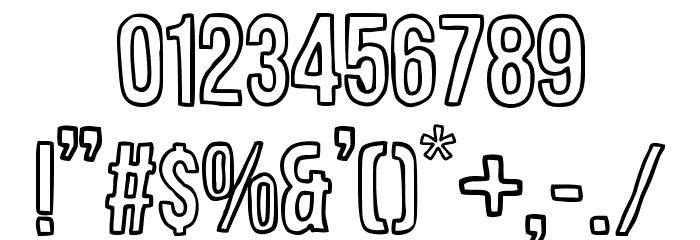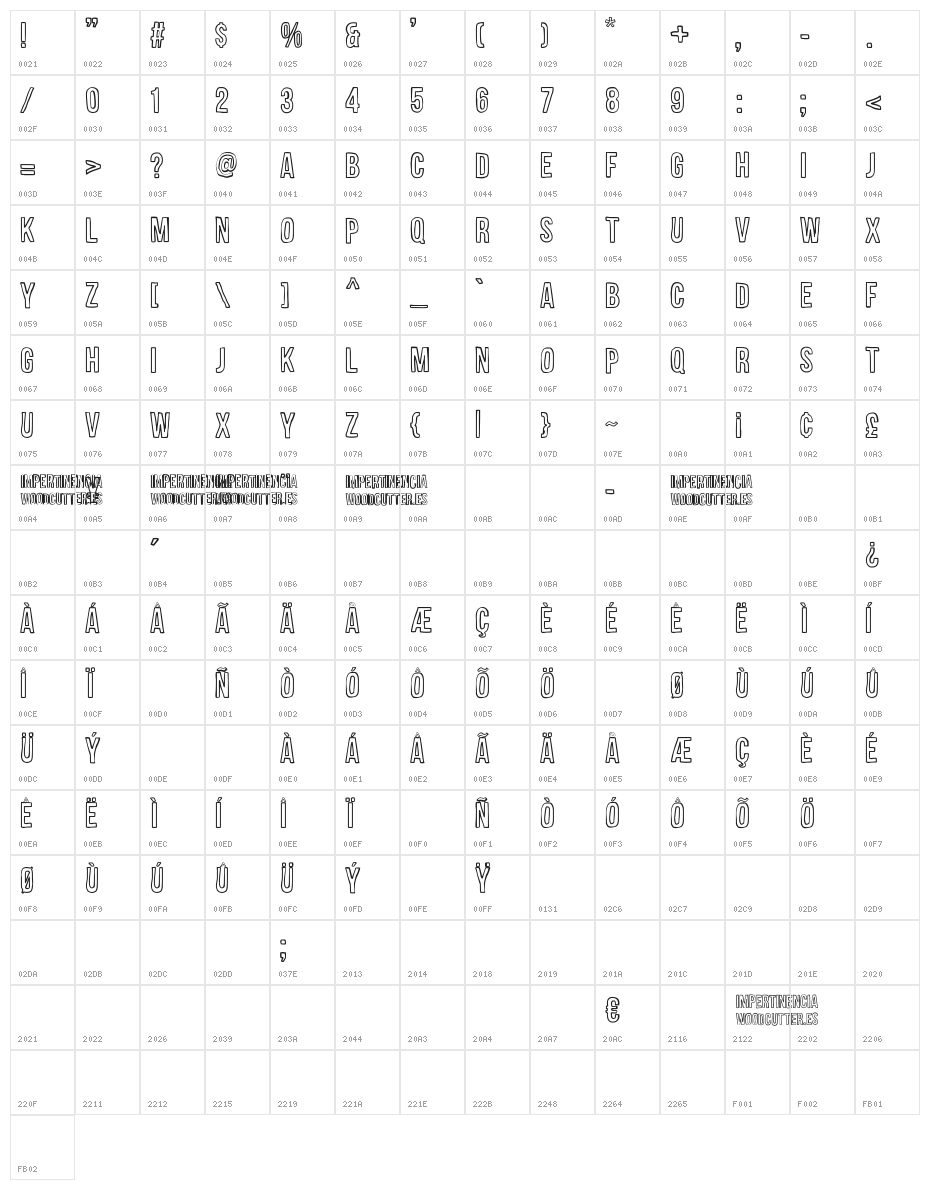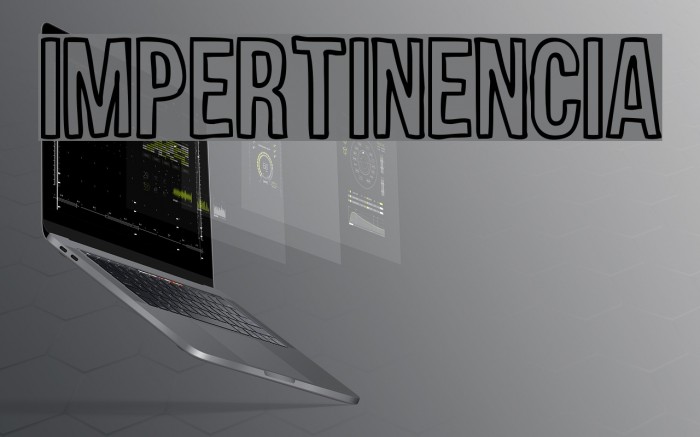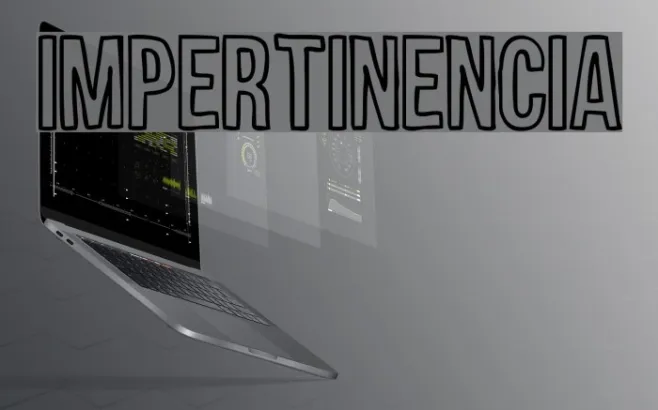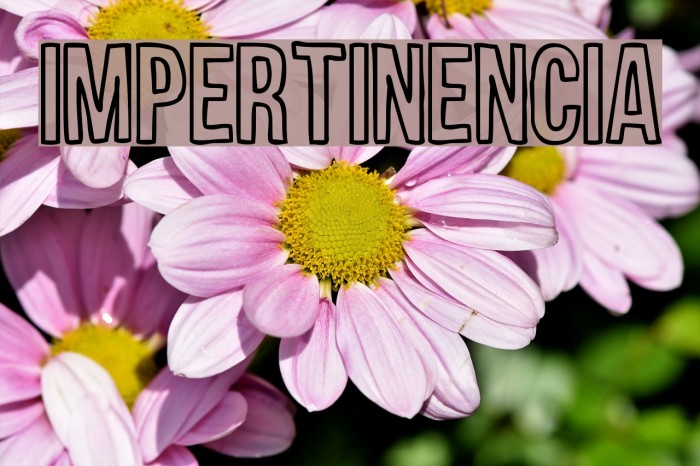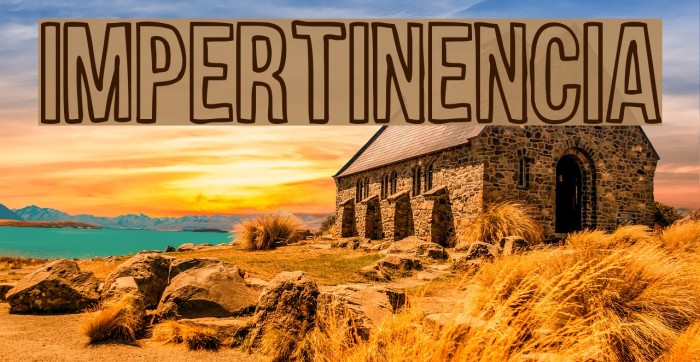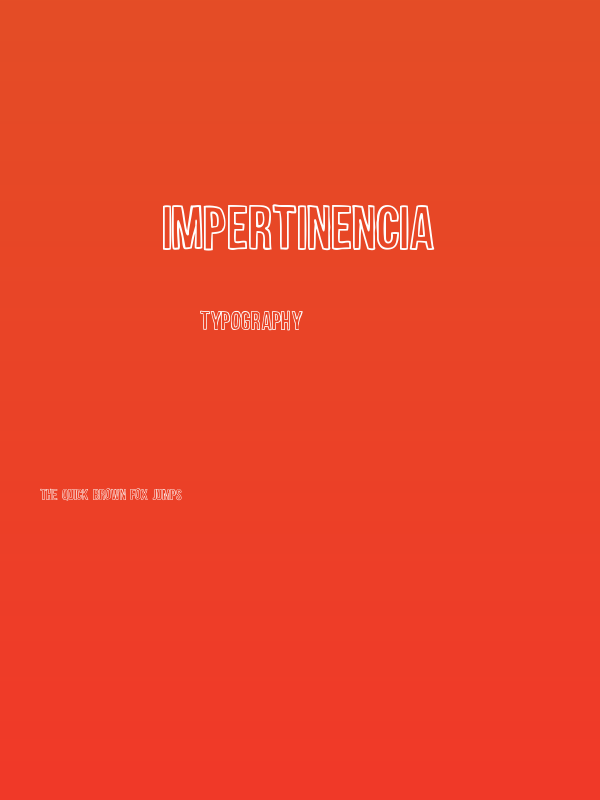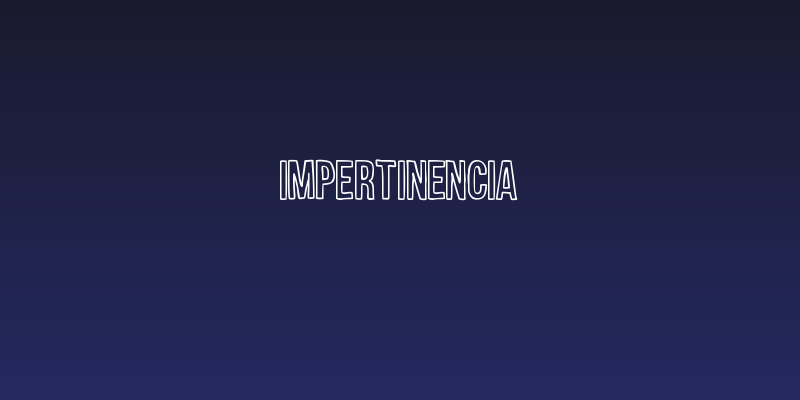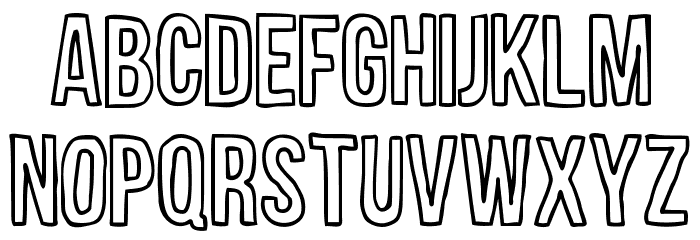
Impertinencia Font
Impertinencia Description
This font features a bold, outlined style with a playful and dynamic appearance. The characters are uppercase and lowercase letters, numbers, and a variety of special symbols. Each letter is defined by a thick outer line, giving it a three-dimensional effect. The design is consistent across all characters, maintaining a uniform width and height, which contributes to its legibility. The font's boldness and outline make it suitable for eye-catching designs, where emphasis and visibility are key. Its unique style can add a fun and creative touch to any project.
| Proposed Projects | Ideal for posters, headlines, logos, and any design requiring a bold, eye-catching font. |